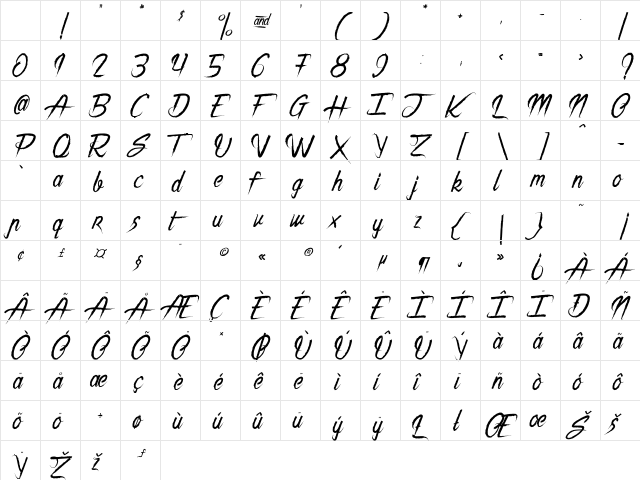
Complete The Night Creatures 2 Regular glyph index. Displaying only characters natively supported by The Night Creatures 2 Regular font.
The Night Creatures 2 is a composed and adaptable typeface that performs quietly and consistently across a wide range of design contexts.